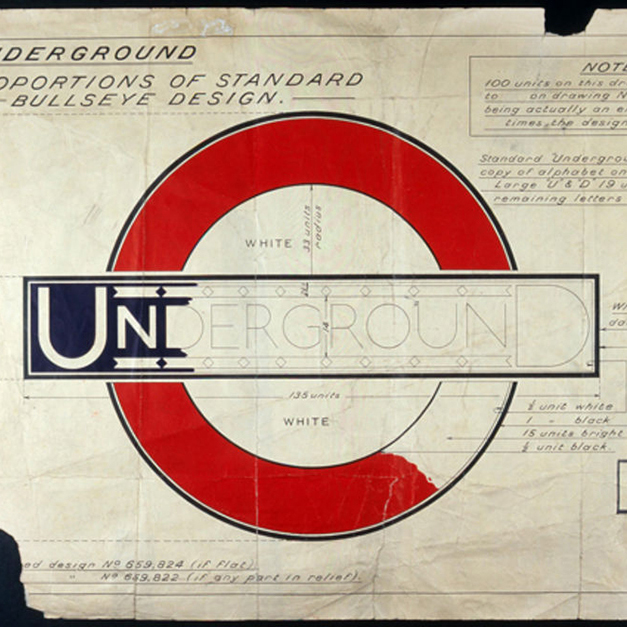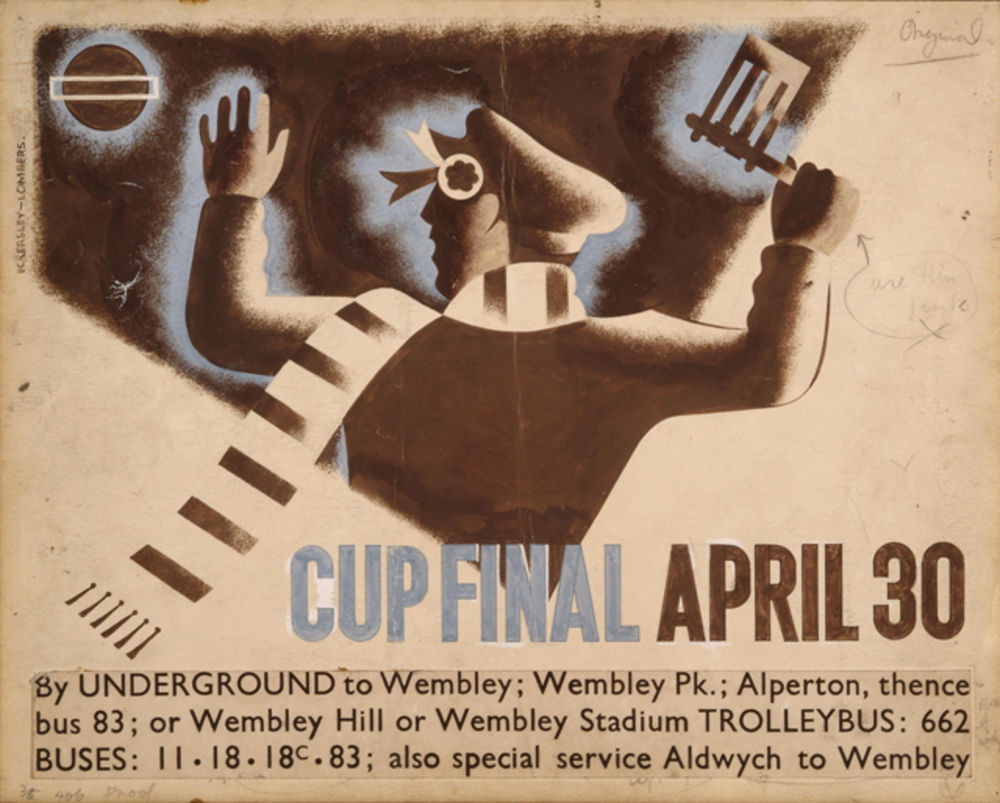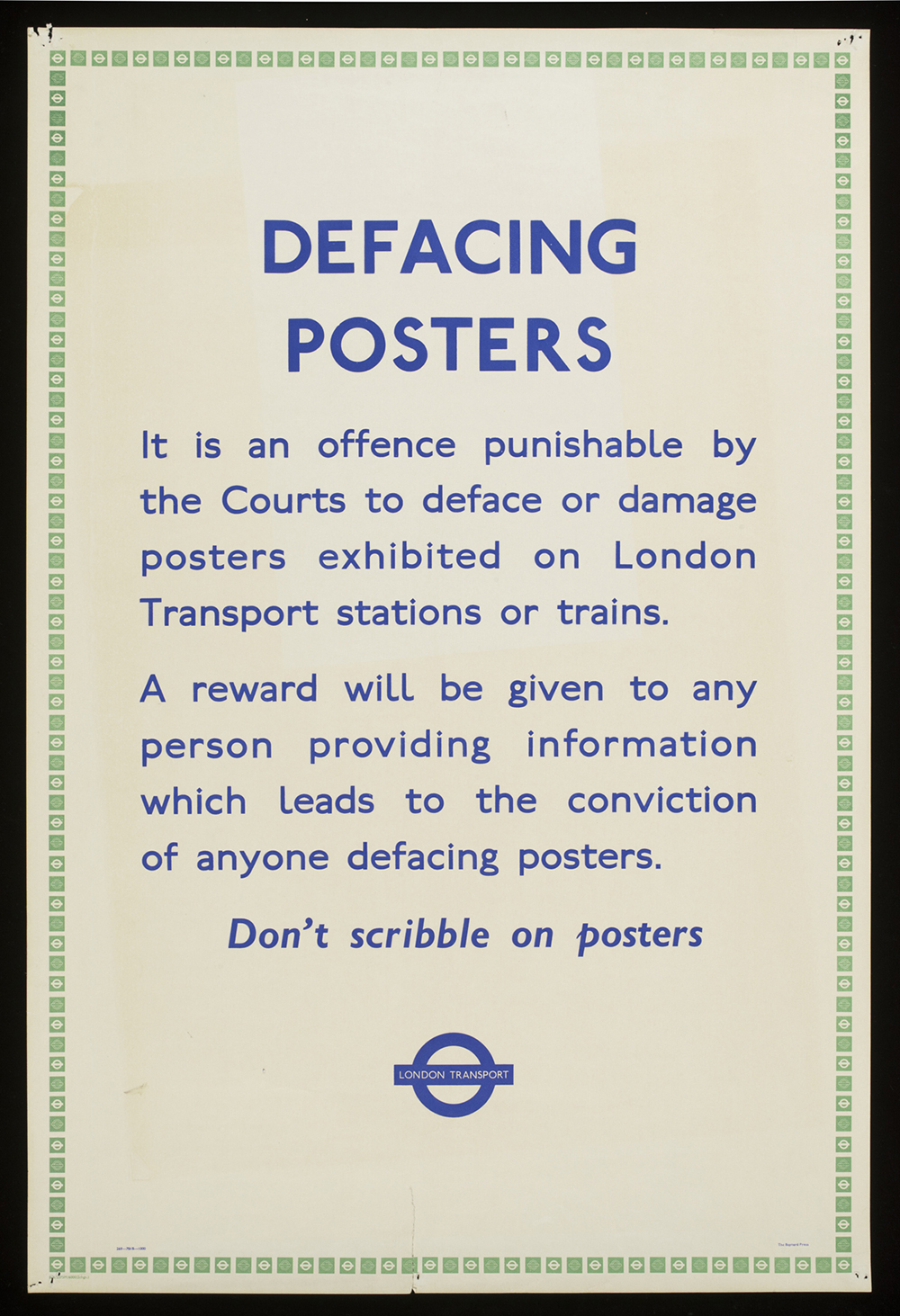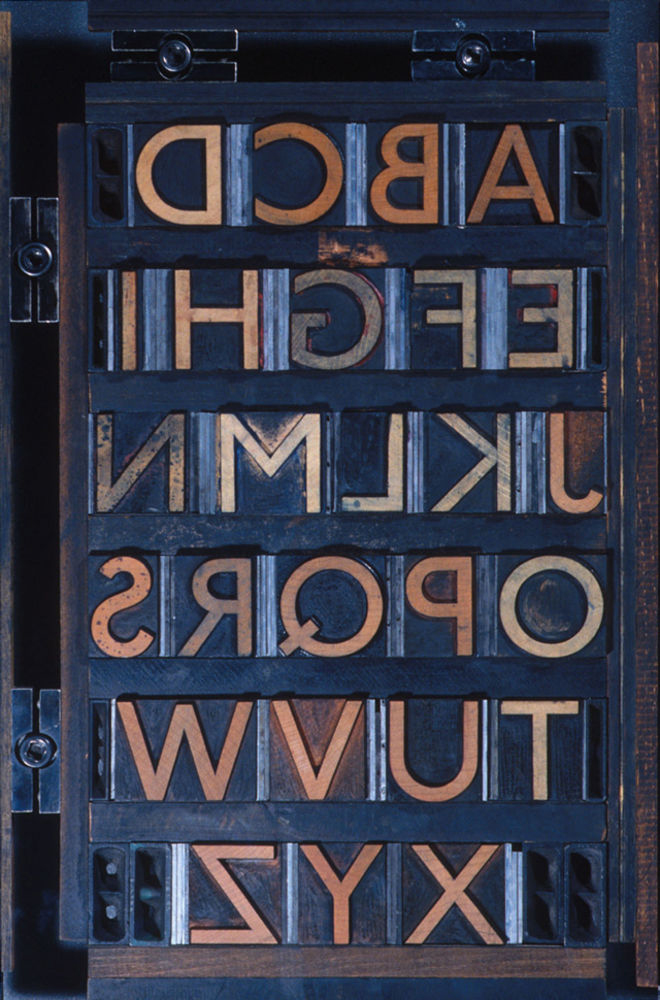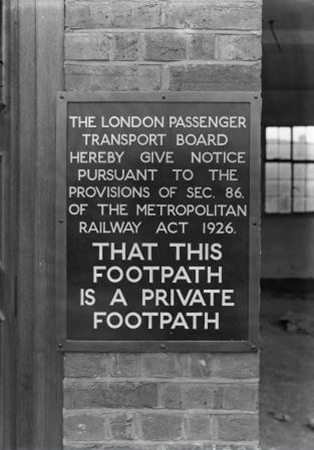
Celebrating 100 years of London’s Underground iconic font
It seems ironic, if not mildly amusing, that one of the most urban of signifiers of all – the famous London Underground typeface – was dreamt up in a small Sussex village” writes Wallpaper’s Sam Rogers. “And yet it was. That same lettering is celebrating its 100 anniversary this year, so in tribute, the Ditchling Museum of Art + Craft is putting on a show.” Aptly named ’Underground: 100 years of Edward Johnston’s Lettering from London’ is a cultural event customised for the fontlover. The exhibition marks the centenary of Johnston’s world famous typeface for London Underground which has barely changed over 100 years, “a testament to its success as station way finders.”
“Johnston’s remit was to unite the London Underground Group, the different companies all using the same rails and tunnels,” says Donna Steel, curator of a new exhibition about Edward Johnston and his influence on printing at the Ditchling Museum of Arts and Crafts in East Sussex to BBC.
Cup final, Tom Eckersley and Eric Lombers
“All the advertising, all the signage was all completely different - there was this cacophony of letters. Johnston applied the proportions of Roman capital letters to his typeface, so it was rooted in history, rooted in traditional calligraphy. But it has an elegance and a simplicity that absolutely fitted the modern age” she continues.
Hand drawn by Johnston whilst living in Ditchling this alphabet is gloriously simple, but its design is rooted in much earlier lettering since it bears the proportions of Roman capitals. The design was initially proposed in 1913 by Frank Pick, commercial manager of London Underground Railway as a joint project for Edward Johnston and Eric Gill. Yet Gill was unable to proceed since he had agreed to a major commission of Stations of the Cross stone reliefs for Westminster Cathedral.
Original drawing for the London Underground roundel symbol Design: Edward Johnston © TfL/London’s Transport Museum
Johnston’s typeface is known variously as Underground, or Johnston Sans. It is also known as the basis on which Eric Gill, one of Johnston’s first pupils at Central School of Arts & Crafts, designed his typeface Gill Sans for the Monotype Corporation, released in 1928. With similar proportions to Johnston’s earlier typeface, it was initially criticised for being too similar but both Johnston Sans and Gill Sans have become modern classics. Just by reading Johnston’s instructions sent to London Transport’s printers, you feel his sensitivity towards the font:
“In normal Block Letter Capitals (based on the approximately circular O) the limit of Weight is determined by one (or both) of two considerations. 1st by the effect on the transversely divided Caps A B E F P R & to a less extent on H G K X Y. 2nd When a “lower case” (or “small letter”) - “l.e.” Is used, to match the Capitals. (Note: it is convenient to express the Weight of a letter by the stem-width of thickness compared with the Stem-Height…)
1st in a transversely divided letter of a very heavy make there may be very little, or even insufficient, Background (especially above the transverse bar). Compare two heavy Es. It is seen that in E of W + H over 5 the upper & lower parts of Background xx are about the same width or thickness as the E’s arms or stem.”
One inch monoline sans serif Underground, or Johnston Sans type designs by Edward Johnston, 1916
Born in Uruguay, this exhibition shows Johnston as a true man of letters, resurrecting and redefining calligraphy in the West, and designing an elegant typeface for London Underground. Highlights include Johnston’s calligraphy for W R Lethaby which secured his post as a teacher at Central School of Arts & Crafts; manuscripts showing his development as a calligrapher; rarely seen working drawings of the Underground typeface, and original drawings for Gill Sans.
An “authentic lettering of the 20th century” the typeface aimed for nothing more than consistency and clarity. “Ever the purist, Johnston went back to his calligraphy roots and simplified the Roman letters down to their very essence, distilling along the way a visual identity that endures today. (The font was only updated once, and ever so slightly, in 1979)” writes Rogers.
Bulls Eye, © Crafts Study Centre
Yet this is just one of the many celebration Ditchling Museum of Arts and Crafts has organised for this a summer that is dedicated to Johnston. The museum has created a giant and unorthodox method of printing Johnston Sans - a 12.5 ton steamroller according to the BBC’s Dan Damon report.
“We’re going to make some huge, laser-cut Johnston wood types, ink them up with a really big roller, lay very large sheets of paper over the top, and then drive over it with a steamroller” says Nathaniel Hepburn, director of the Museum. “The typeface is seen before any of the words are ever read.”
A century ago this iconic typeface was created and it is as contemporary as London. This is British typography at it’s best.
Defacing Posters, © Victoria & Albert Museum, London
Way Out sign at Brompton Road, 1916, © Ditchling Museum of Art + Craft
Pocket Underground Map, 1933
Edward Johnston at his desk